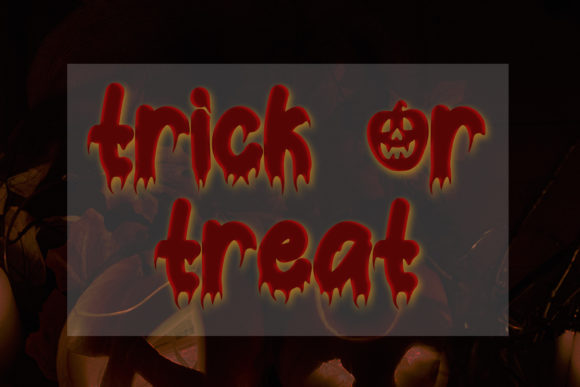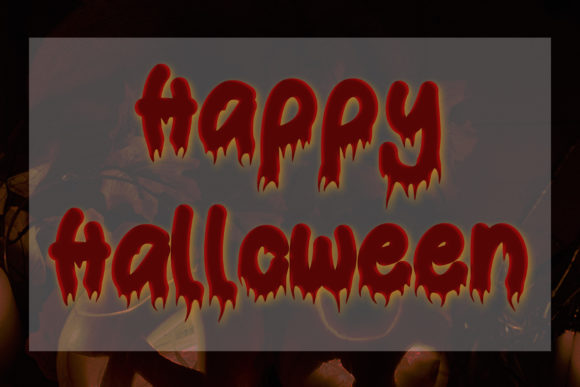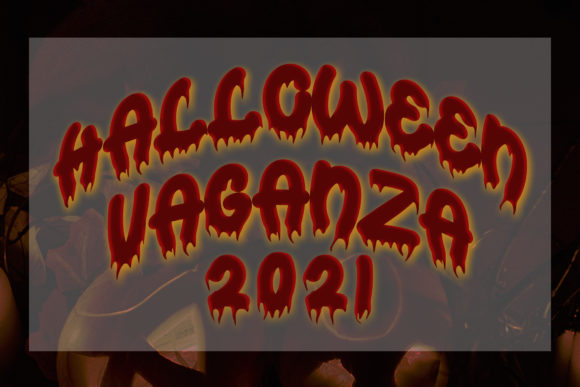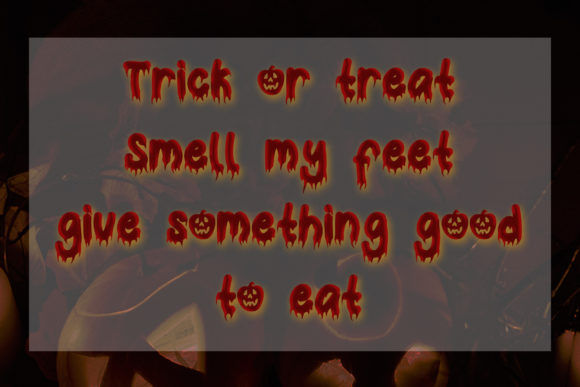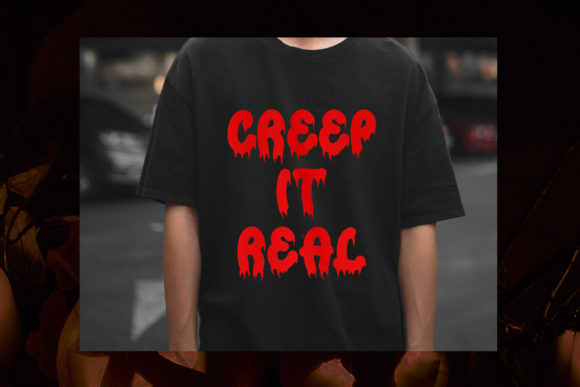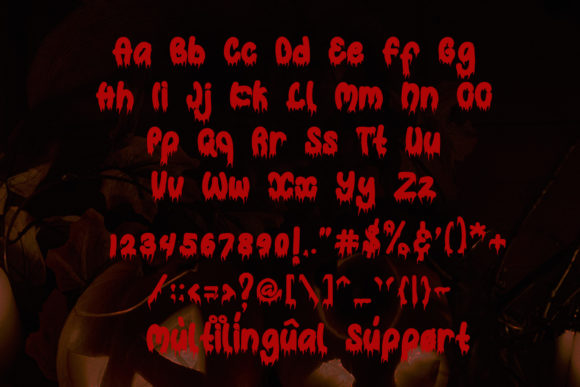
Bloody Spooky Font: The Ultimate Decoration for Your Halloween Projects
Are you looking for a font that will add a spooky touch to your Halloween-related projects? Look no further than the Bloody Spooky Font! This thick-lettered and spooky decorative font is perfectly suitable for any crafty idea you have, from party invitations to DIY decorations.
What Makes Bloody Spooky Font So Special?
The Bloody Spooky Font is designed to bring a sense of eeriness and excitement to your projects. Its thick, bold letters are perfect for creating eye-catching titles and headings that will grab attention. The font is also highly versatile, making it suitable for a wide range of applications, from digital designs to print materials.
One of the best things about the Bloody Spooky Font is that it is PUA (Private Use Area) encoded. This means that you can access all of the glyphs and swashes with ease, giving you even more creative freedom to customize your projects. With PUA encoding, you can easily insert special characters and flourishes into your text, taking your designs to the next level.
Perfect for Halloween-Themed Projects
As the name suggests, the Bloody Spooky Font is perfect for Halloween-themed projects. Whether you’re creating invitations for a spooky party, designing decorations for a haunted house, or crafting DIY costumes, this font is sure to add a touch of eerie elegance to your work. The font’s bold, thick letters are reminiscent of creepy gravestones, making it a great fit for any Halloween-related project.
The Bloody Spooky Font offers endless creative possibilities for designers and crafters. Here are just a few ideas to get you started:
- Create spooky party invitations that will set the tone for a howling good time
- Design eye-catching decorations for a haunted house or haunted attraction
- Craft DIY costumes and accessories with a personalized, spooky touch
- Make creepy crafts, such as ghostly garlands or spider web decorations
- Design digital graphics, such as social media posts or blog headers, with a spooky twist
Why Choose Bloody Spooky Font?
So why choose the Bloody Spooky Font for your Halloween projects? Here are just a few reasons:
- Unique and eye-catching: The Bloody Spooky Font is sure to grab attention with its bold, thick letters and spooky design
- Highly versatile: The font can be used for a wide range of applications, from digital designs to print materials
- Easy to use: The font is PUA encoded, making it easy to access all of the glyphs and swashes
- Perfect for Halloween: The font is specifically designed for Halloween-themed projects, making it a great fit for any spooky celebration
| Font Name | Bloody Spooky Font |
| Author | tinyhandletter |